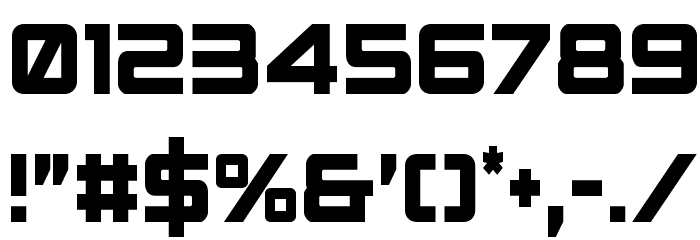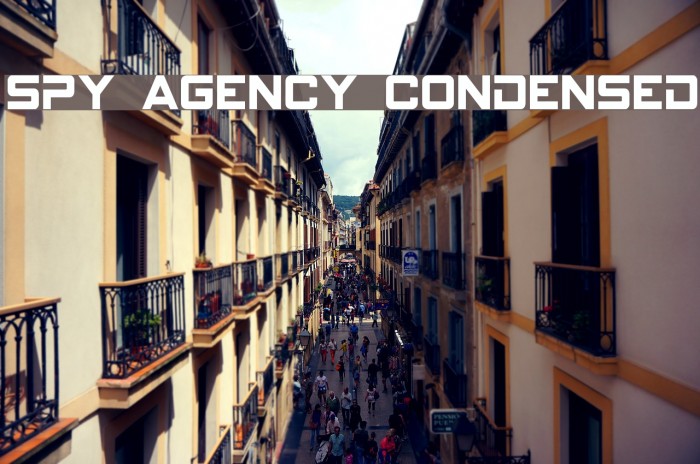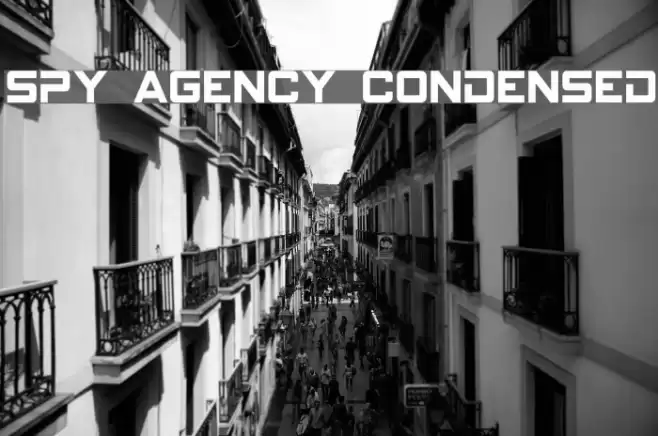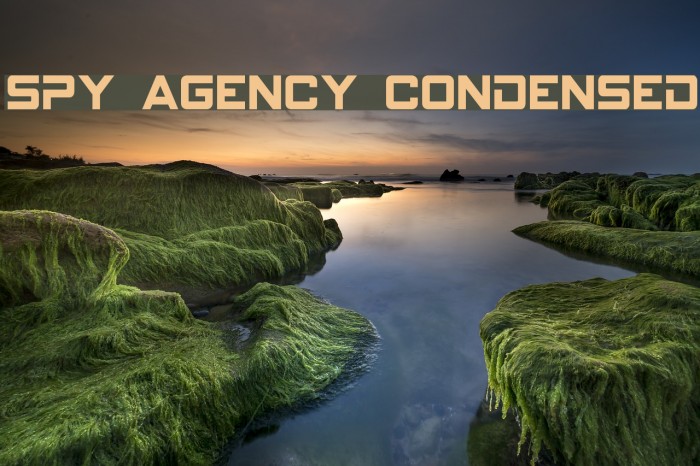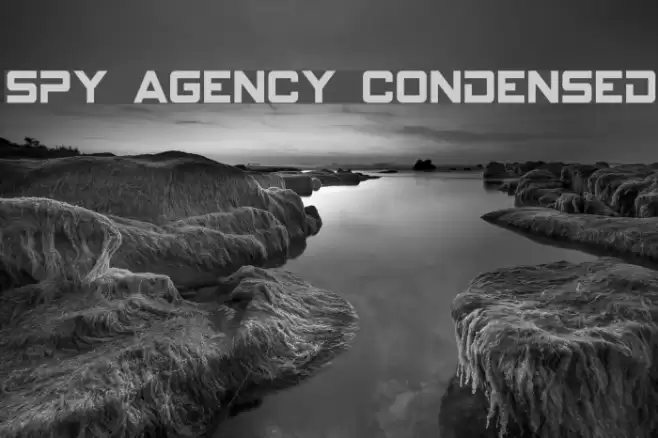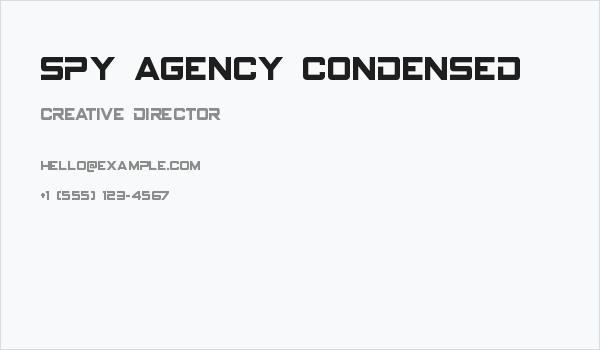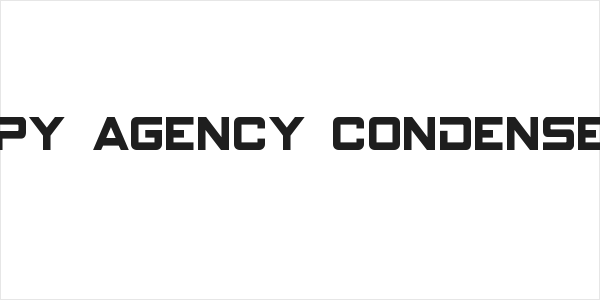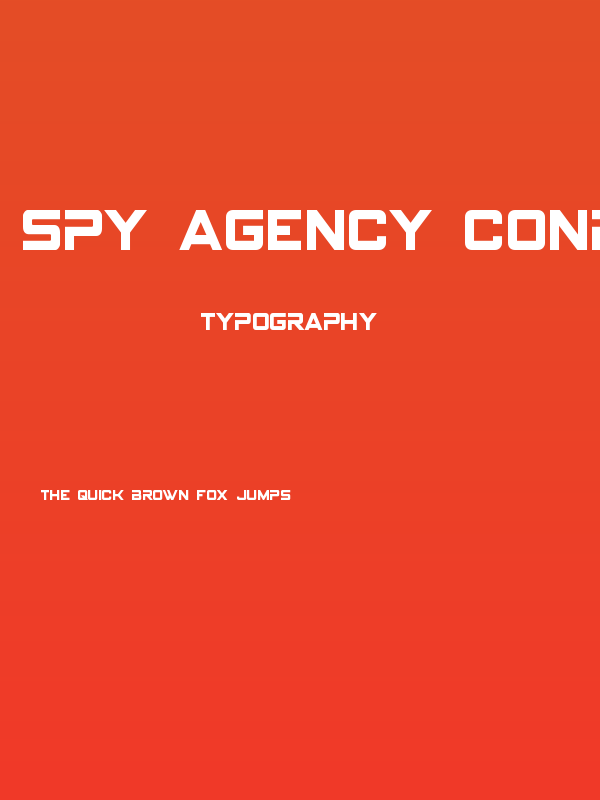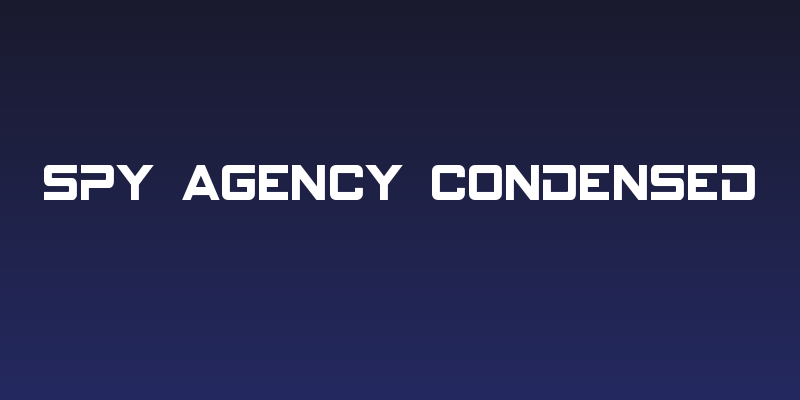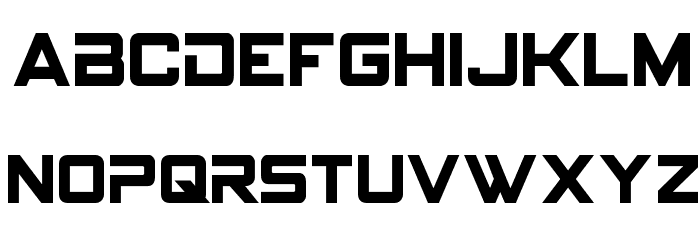
Spy Agency Condensed Font
Spy Agency Condensed Description
This font features a bold, geometric design with a condensed structure, making it ideal for impactful headlines and titles. The characters are uniformly thick, with sharp angles and a modern aesthetic that conveys a sense of strength and precision. The uppercase letters are particularly striking, with a uniform height and width that enhances readability. The numbers and special characters maintain the same boldness and geometric style, ensuring consistency across all text elements. This font's design is reminiscent of futuristic or technological themes, making it suitable for projects that require a modern and edgy look.
| Proposed Projects | Perfect for use in branding, posters, technology-related projects, and any design requiring a strong, modern aesthetic. |